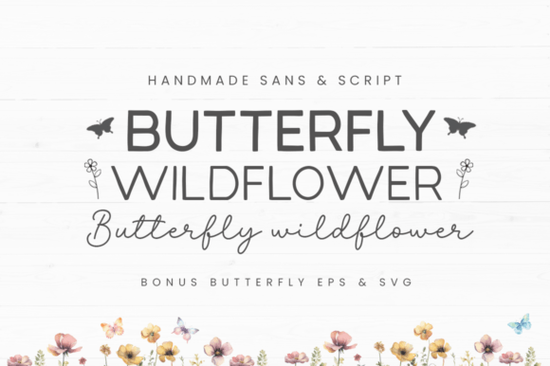
If you're looking for a friendly, versatile font set that works well across craft projects, small business branding, and print-on-demand designs, the Butterfly Wildflower Font is a thoughtful choice. It’s not just one font it’s a coordinated trio: a light sans serif, a bold sans serif, and a flowing script plus 25 ready-to-use butterfly vector files in EPS and SVG formats. That means whether you’re cutting vinyl for a handmade tote bag or designing a logo for a local florist, you’ve got clean typography and charming decorative elements in one package.
What makes Butterfly Wildflower easy to use?
This font set was designed with practicality in mind. The thin and bold sans serif styles pair naturally no awkward contrast or mismatched weights and the script adds warmth without sacrificing legibility at medium sizes. Unlike some script fonts that blur or break up when resized, this one holds its shape well on mugs, t-shirts, and Cricut projects. The included butterfly vectors are cleanly drawn, scalable, and layered thoughtfully so you can recolor individual wings or group them with text in design software like Silhouette Studio or Adobe Illustrator.
Many designers appreciate that all three fonts share consistent x-heights and spacing. That means mixing them in one layout say, “Wildflower Co.” in the bold sans, with “est. 2024” in the thin version and a butterfly icon beside it feels intentional, not patched together.
Who uses this kind of font set and how?
Small business owners often choose Butterfly Wildflower Font for shop logos, packaging labels, and social media banners especially if their brand leans natural, feminine, or garden-inspired. It’s subtle enough for a boutique apothecary but lively enough for a kids’ activity kit.
Crafters and Cricut users find the SVG butterflies especially handy. You can layer them behind text, tuck one into a corner of a greeting card, or scatter them as repeating motifs on fabric prints. Because they’re vector-based, they scale down to 0.2 inches for delicate iron-on transfers or up to poster size without losing crispness.
Print-on-demand sellers report good performance with this set on platforms like Redbubble and Etsy. The script font reads clearly on mockups, and the sans serif options give flexibility for minimalist or modern variations of the same design. It also complements other nature-themed assets think wildflower illustrations, watercolor textures, or soft pastel palettes.
How does it compare to similar font sets?
If you already own or have used fonts like Sogo Font, you’ll notice Butterfly Wildflower shares its clean, airy feel but adds more stylistic range with the included script and bonus vectors. For those who prefer bolder outlines, AB Varsity Outline Font offers strong visual impact, while Butterfly Wildflower leans softer and more organic.
Unlike many single-style fonts, this set gives you real typographic hierarchy options without needing to hunt for compatible pairings. And because the script isn’t overly ornate, it works in both digital and physical contexts unlike some scripts that look great on screen but struggle with cut lines or embroidery digitizing.
- Test the script font at 24–36 pt first smaller sizes may lose some detail in the swirls.
- When using the bold sans with the script, leave a little extra line height about 1.4–1.6 to keep the script’s ascenders from feeling cramped.
One last note: if you’re building a seasonal collection spring weddings, Mother’s Day cards, or botanical-themed stickers this set fits right in without requiring heavy editing or workarounds. It’s designed to be dependable, not flashy. And since it includes both web-friendly and craft-ready formats, you won’t need to convert files or worry about compatibility gaps.